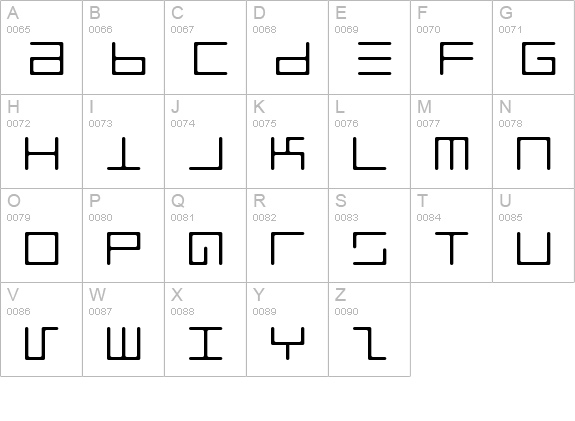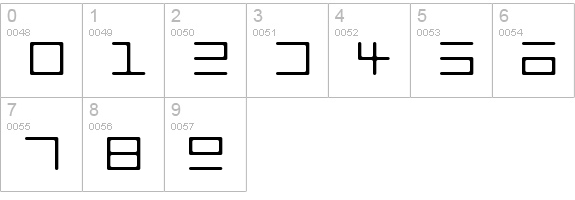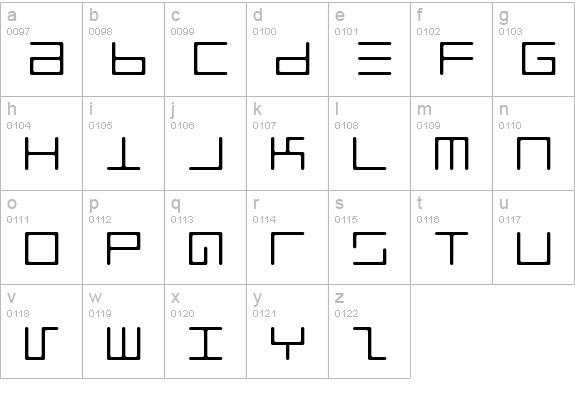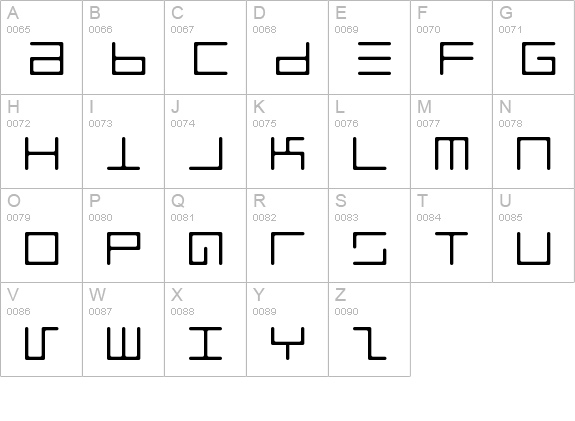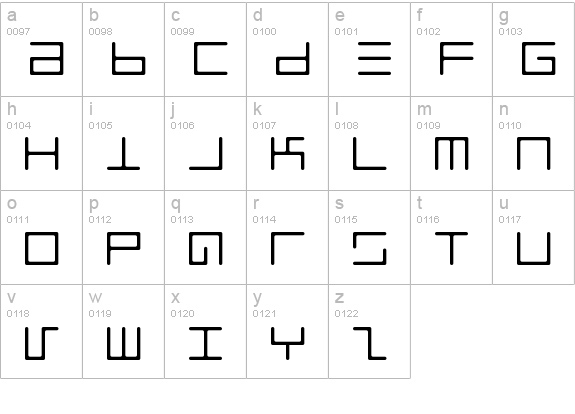
Eppy Evans Round Light is a refined, elegant variant in the Eppy typeface family \xE2\x80\x94 well suited to elegant body text, refined sub-headings, and luxury branding.
Eppy Evans Round Light font is a delightful and charming typeface that exudes a sense of whimsy and playfulness. With its rounded edges and soft curves, this font is perfect for adding a touch of friendliness to any project. The clean and modern design of Eppy Evans Round Light makes it versatile and suitable for a wide range of applications, from branding to packaging to digital design. Best of all, Eppy Evans Round Light font is available for free download at FontsMarket.com. This means you can easily access this stylish and eye-catching font to elevate your designs without any cost. Whether you're working on a personal project or a professional assignment, Eppy Evans Round Light font is a fantastic choice that will surely make a lasting impression. Download it today and let your creativity shine with this fabulous free font!